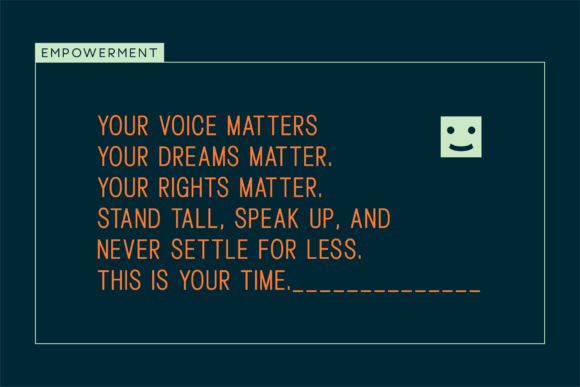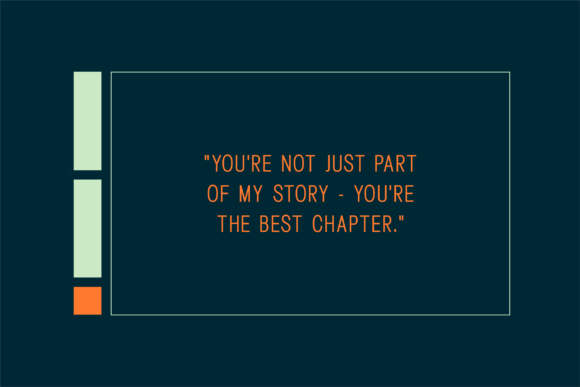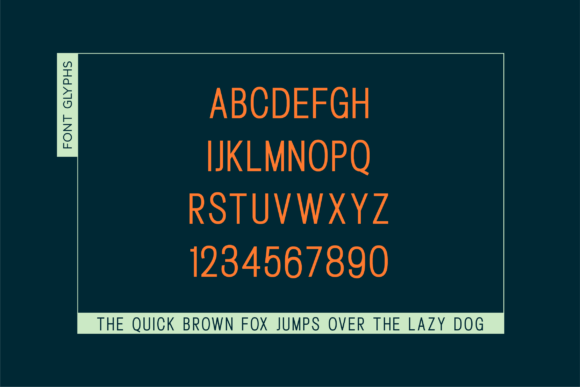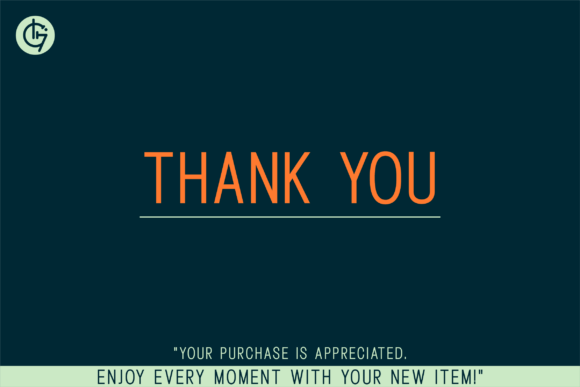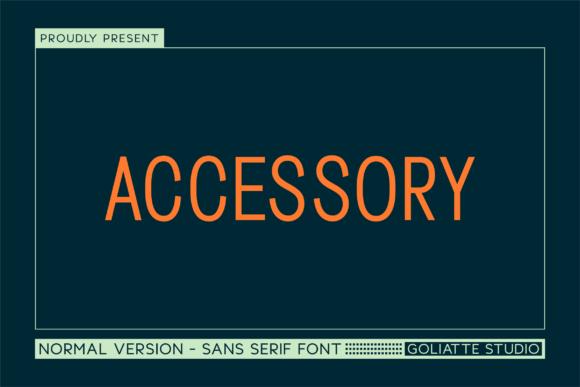
Introducing Accessory – A Modern Sans Serif Typeface
In the world of design, typography plays a crucial role in conveying messages, expressing ideas, and creating a lasting impression. For modern designers, finding the right font that embodies strength, authority, and professionalism can be a daunting task. This is where Accessory comes in – a bold, all-caps sans serif typeface designed to make a statement.
Clean Lines and Minimalist Aesthetic
Accessory boasts clean lines and a minimalist aesthetic that exudes confidence and sophistication. Its geometric structure ensures versatility, making it perfect for a wide range of design projects, from digital interfaces to high-end branding. The font’s bold, crisp edges demand attention, making it ideal for headlines, posters, and anywhere you need your message to stand out.
Key Features of Accessory
• All-caps design: For maximum impact and emphasis on clarity and readability.
• Modern, minimalist style: With a focus on readability, ensuring your message is conveyed with ease.
• Bold, clean lines: For a confident and professional look that demands attention.
• Ideal for branding, logos, packaging, and digital design: Perfect for brands, agencies, and designers looking for a versatile font.
• Perfect for both large-scale headlines and smaller text blocks: Ensuring consistency and impact across various design projects.
The Benefits of Using Accessory
Accessory offers a range of benefits for designers and crafters. Its strong, geometric structure ensures that your design project will stand out, whether it’s a logo, website, or print material. The font’s all-caps design emphasizes clarity and readability, making it perfect for headlines, posters, and anywhere you need your message to be loud and clear.
Who is Accessory Perfect for?
Accessory is perfect for brands, agencies, and designers looking for a modern sans serif typeface that embodies strength, authority, and professionalism. Whether you’re working on a high-end branding project, designing a website, or creating print materials, Accessory is the ideal choice.
Tips for Using Accessory Effectively
To get the most out of Accessory, consider the following tips:
• Use it for headlines and titles: Accessory is perfect for making a statement and drawing attention.
• Pair it with a complementary font: For body text or smaller design elements, pair Accessory with a font that complements its modern, minimalist style.
• Experiment with different colors and textures: To add depth and interest to your design, try experimenting with different colors and textures.
In conclusion, Accessory is a bold, all-caps sans serif typeface that is perfect for modern designers looking for a font that embodies strength, authority, and professionalism. With its clean lines, minimalist aesthetic, and versatile design, Accessory is ideal for a wide range of design projects. Whether you’re working on a high-end branding project, designing a website, or creating print materials, Accessory is the perfect choice.